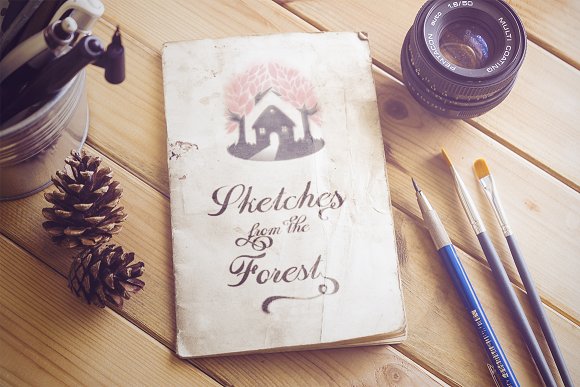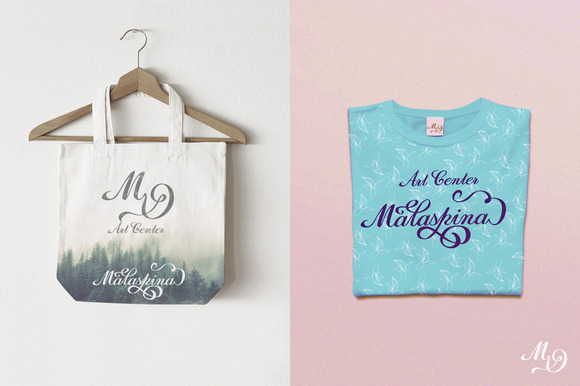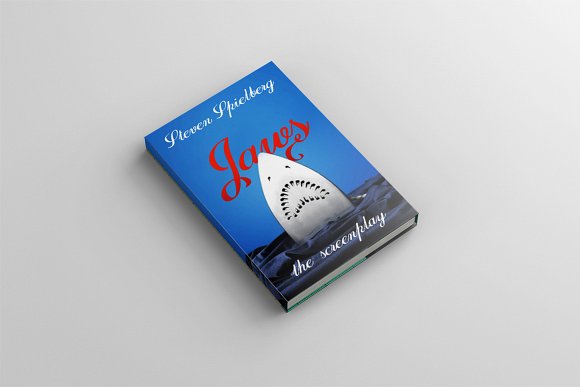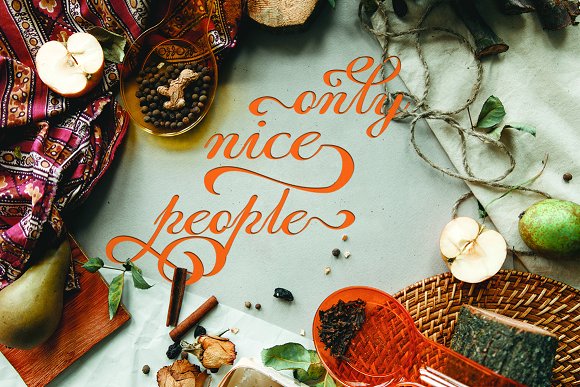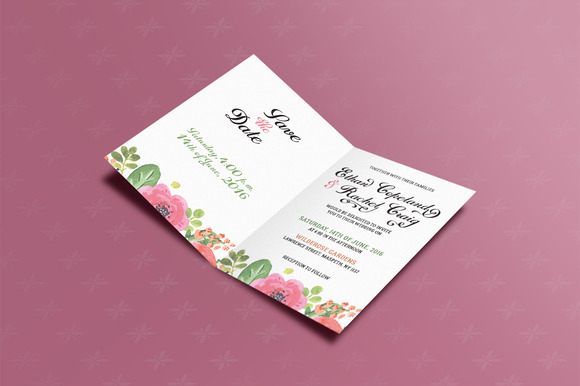
Fuego Font: Elevate Your Designs with Elegance and Flair
Are you a designer or crafter looking for a font that can add a touch of sophistication and whimsy to your projects? Look no further than the Fuego font, a stunning typeface designed by Etewut. This beautiful font features curvy letters and an array of swashes, making it perfect for creating gorgeous decorations and word-art.
What Makes Fuego Font So Special?
The Fuego font is a carefully crafted font that boasts a range of characteristics that set it apart from other fonts. Its curvy letters and swashes give it a unique, elegant feel that’s perfect for a variety of design applications. Whether you’re creating wedding invitations, birthday cards, or wooden signs, Fuego is the ideal choice.
One of the best things about the Fuego font is its versatility. Not only is it easy to read, but it’s also incredibly flexible. You can use it to create stunning word-art, decorate cups, or add a touch of elegance to any craft project. The possibilities are endless, and with Fuego, you can let your creativity shine.
Whether you’re a professional designer or a crafter looking to add a personal touch to your projects, the Fuego font is an excellent choice. Its unique blend of elegance and whimsy makes it perfect for a range of applications, from wedding invitations to DIY crafts.
Use Fuego Font for:
- Birthday cards and decorations
- Wooden signs and wall art
- Decorating cups and ceramics
- Word-art and typography projects
- DIY crafts and scrapbooking
Why Choose Fuego Font?
So why choose the Fuego font over other fonts? Here are just a few reasons:
- Unique and elegant design
- Easy to read and versatile
- Perfect for designers and crafters
Get Creative with Fuego Font
In conclusion, the Fuego font is a stunning typeface that’s perfect for designers and crafters looking to add a touch of elegance and whimsy to their projects. With its unique design, versatility, and PUA encoding, it’s an excellent choice for a range of applications. Whether you’re creating wedding invitations, wooden signs, or DIY crafts, the Fuego font is sure to impress.